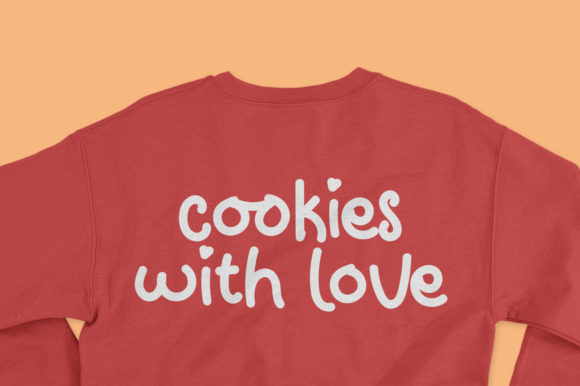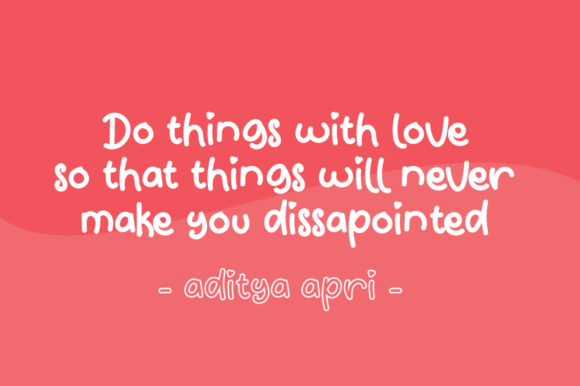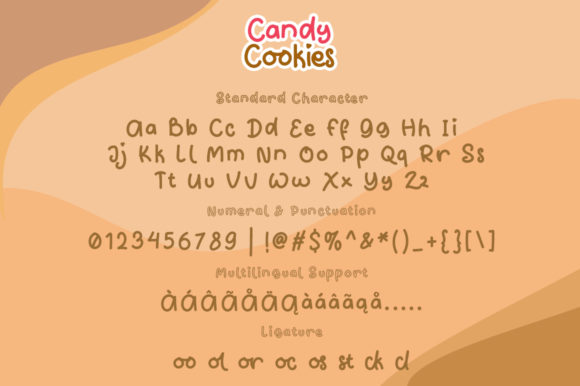
Discover the Sweetest Typography: Candy Cookies Font
Do you remember that moment when you stumbled upon the perfect font for your design project, and suddenly everything fell into place? It’s like finding the missing piece of a puzzle – it elevates your entire creation and makes it truly special. For designers, the search for the perfect font can be a long and arduous one, but what if we told you we’ve found the sweetest typography out there?
Introducing the Candy Cookies Font, a fun and playful handwritten font that’s sure to add a touch of whimsy to any design project. Whether you’re working on branding, headings, wedding designs, or invitations, this font is the perfect addition to take your creations to the next level. Its versatility and charm make it a valuable asset for any designer looking to add a personal touch to their work.
Candy Cookies Font Key Features
- Font Style: A playful, handwritten font with a whimsical feel, perfect for adding a touch of sweetness to your designs.
- Character Set: Includes a full set of uppercase and lowercase letters, numbers, and punctuation marks, making it suitable for various types of text-based projects.
- Unique Characteristics: Features a unique, hand-drawn style with subtle imperfections and variations, giving it a distinctive and charming look.
Candy Cookies Font Review
I recently had the chance to work with the “Candy Cookies Font” and I’m sharing my honest review with you. Here’s what I think:
- The font’s playful and whimsical feel is perfect for creating a sweet and festive atmosphere.
- The font is highly customizable, allowing you to adjust the size, color, and style to fit your project’s needs.
- The font includes a wide range of characters, including numbers, punctuation, and symbols.
- The font is also highly legible, making it easy to read even in small sizes.
- The font may be too sweet and cutesy for some projects, potentially coming across as immature or unprofessional.
- The font’s high customizability can also be a limitation, as it may be overwhelming to choose from so many options.
- The font may not be suitable for projects that require a more serious or formal tone.
Overall, I think the “Candy Cookies Font” is a fun and versatile font that’s perfect for creating a playful and festive atmosphere. While it may have some limitations, it’s a great addition to any designer’s toolkit. Just be sure to use it in the right context to get the most out of it!
Use the Candy Cookies font to add a playful touch to your designs.
Pair it with bright colors and fun graphics for a whimsical look.
Experiment with different font sizes and styles to create visual interest.
Use the Candy Cookies font for:
Birthday party invitations and decorations.
Children’s book covers and illustrations.
Food and dessert branding and marketing materials.
Alternative Font Options for Designers
Great Vibes is a modern, cursive script font ideal for creating a whimsical and playful atmosphere in designs. It features elegant, flowing lines and a mix of rounded and pointed letterforms. Great Vibes is suitable for use in logos, advertisements, and editorial content where a touch of sophistication and elegance is desired.
Compared to Candy Cookies Font, Great Vibes has a more refined and sophisticated feel, making it a better choice for high-end or luxury brands.
Satisfy Font
Satisfy is a bold, sans-serif font designed for use in headings and titles. Its geometric shapes and clean lines give it a modern and industrial feel, making it perfect for designs that require a strong, attention-grabbing presence. Satisfy is suitable for use in logos, product packaging, and advertising where a bold and confident message is desired.